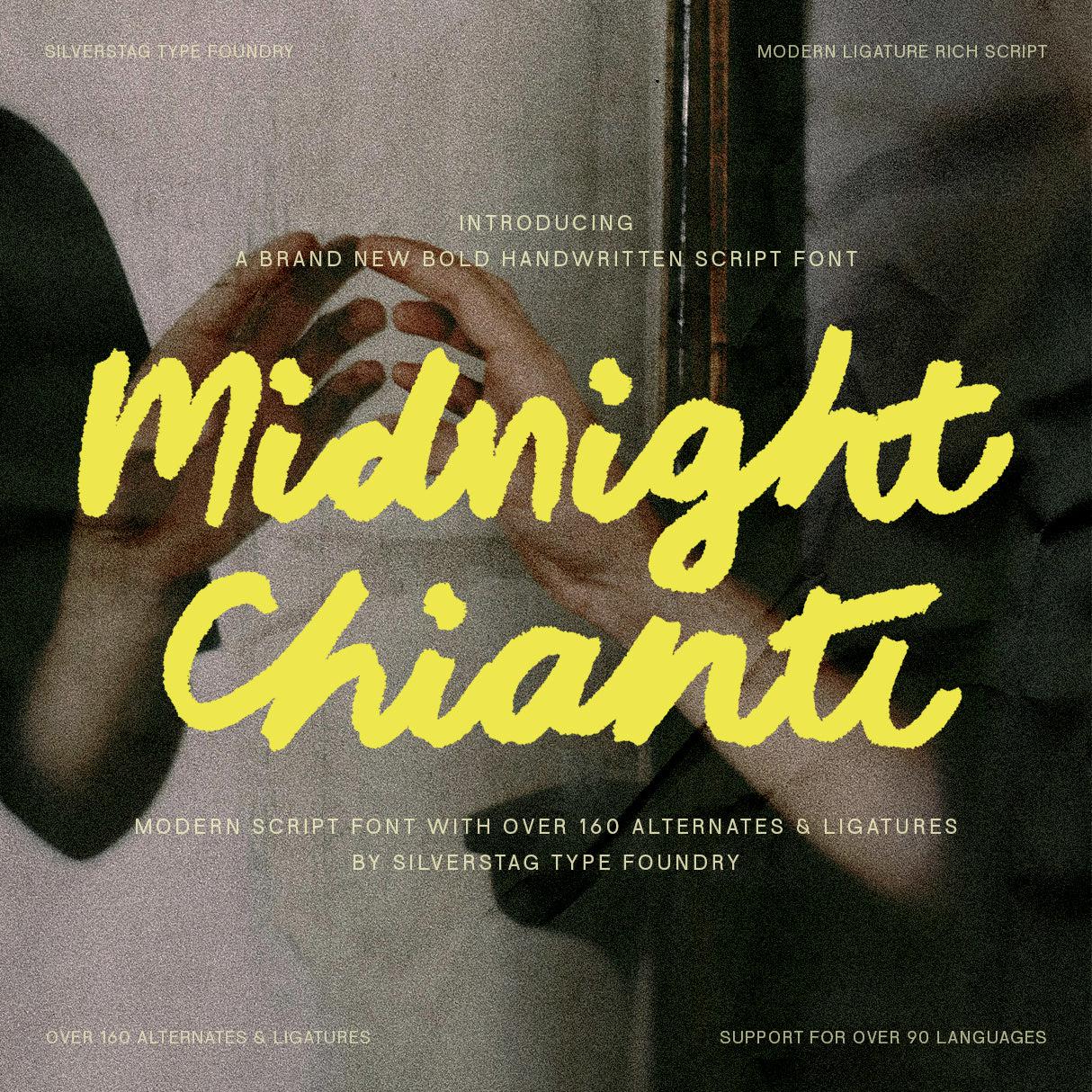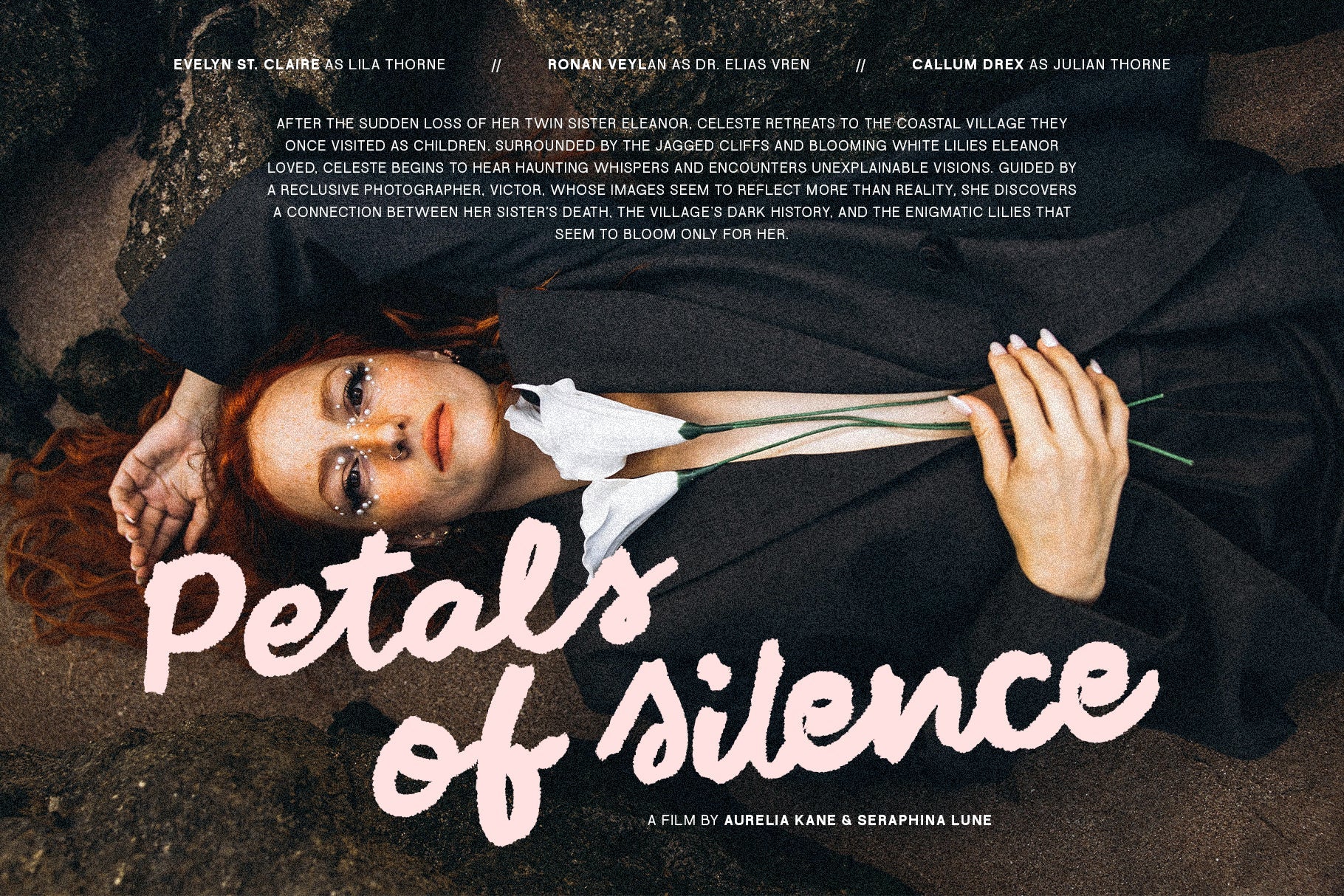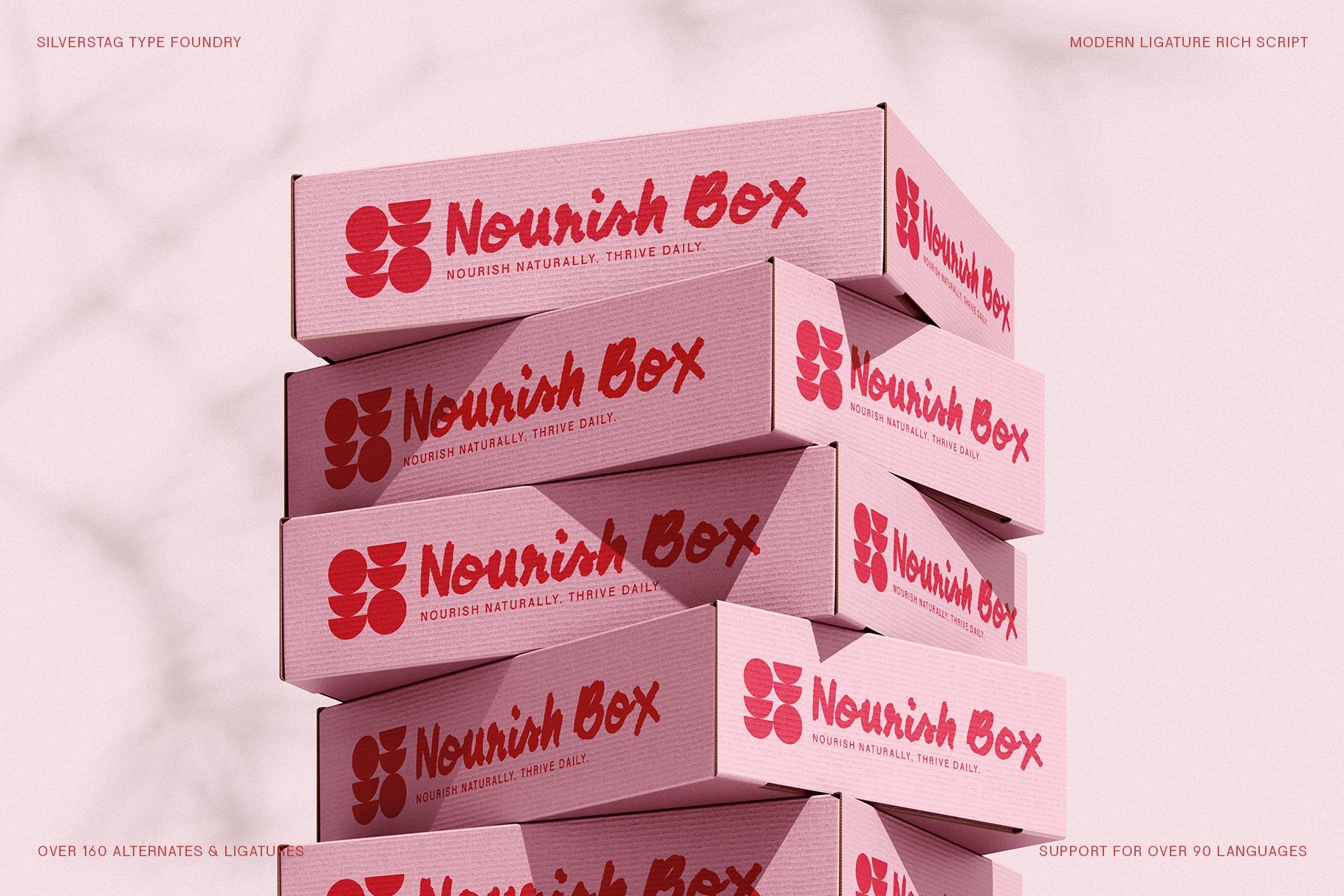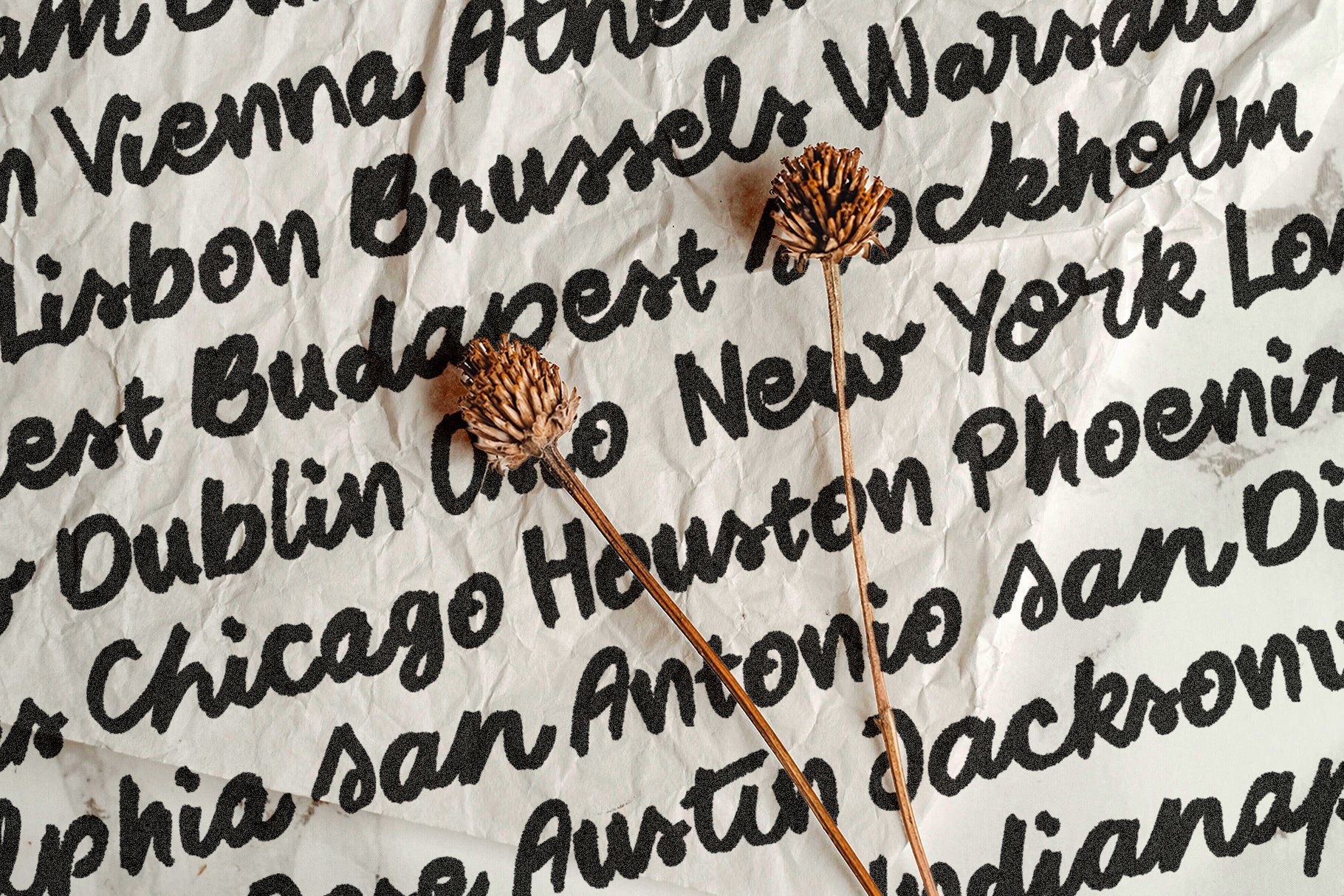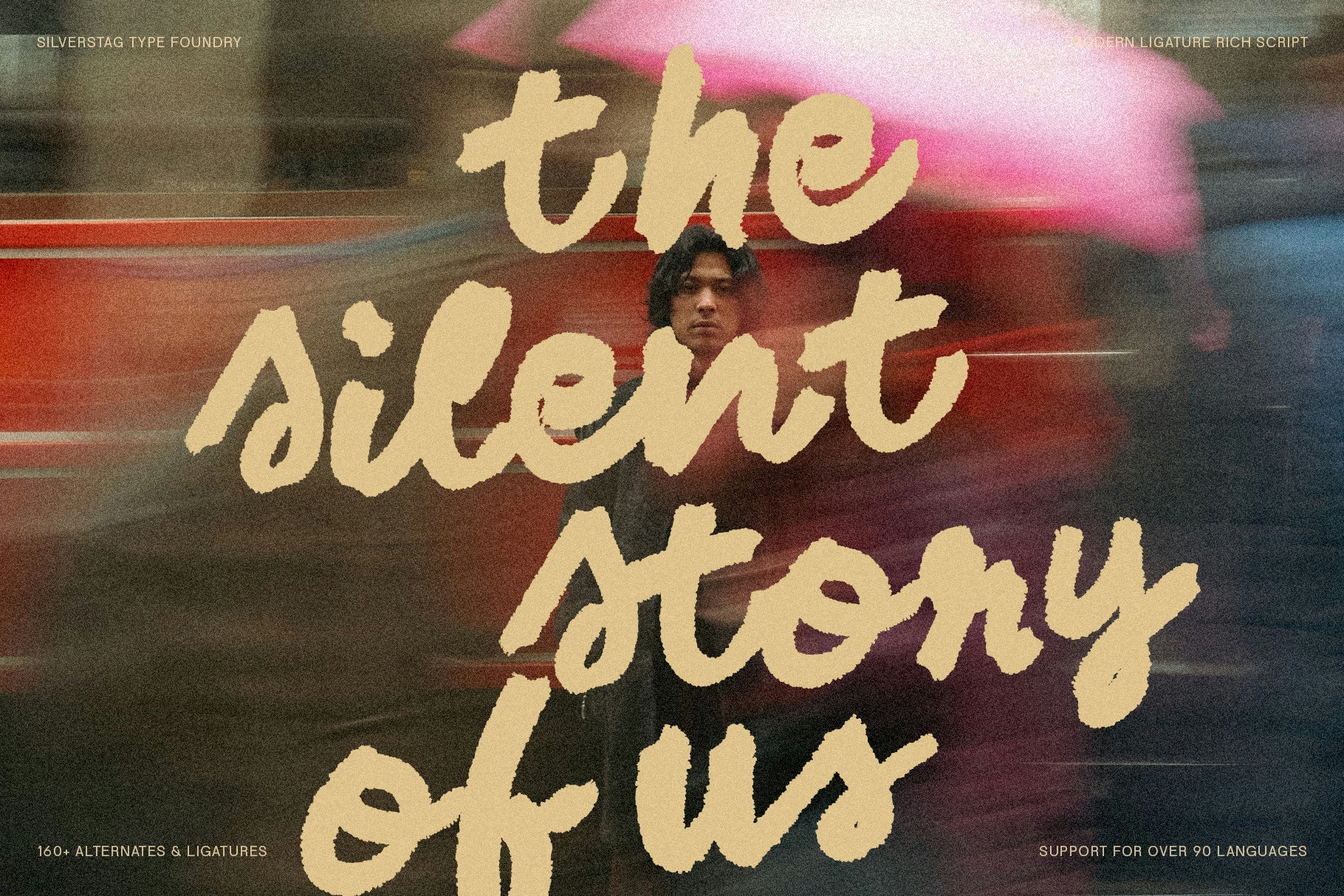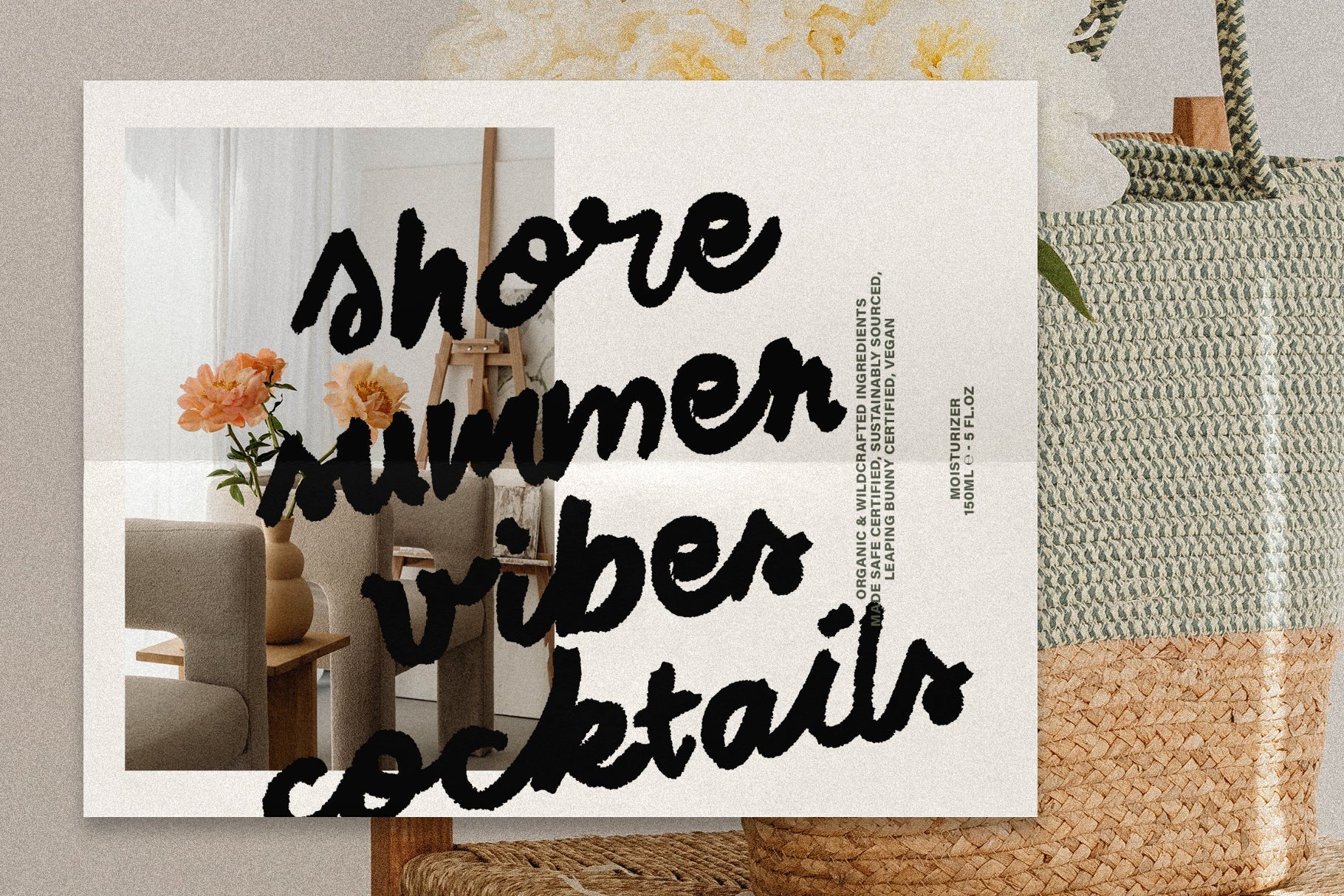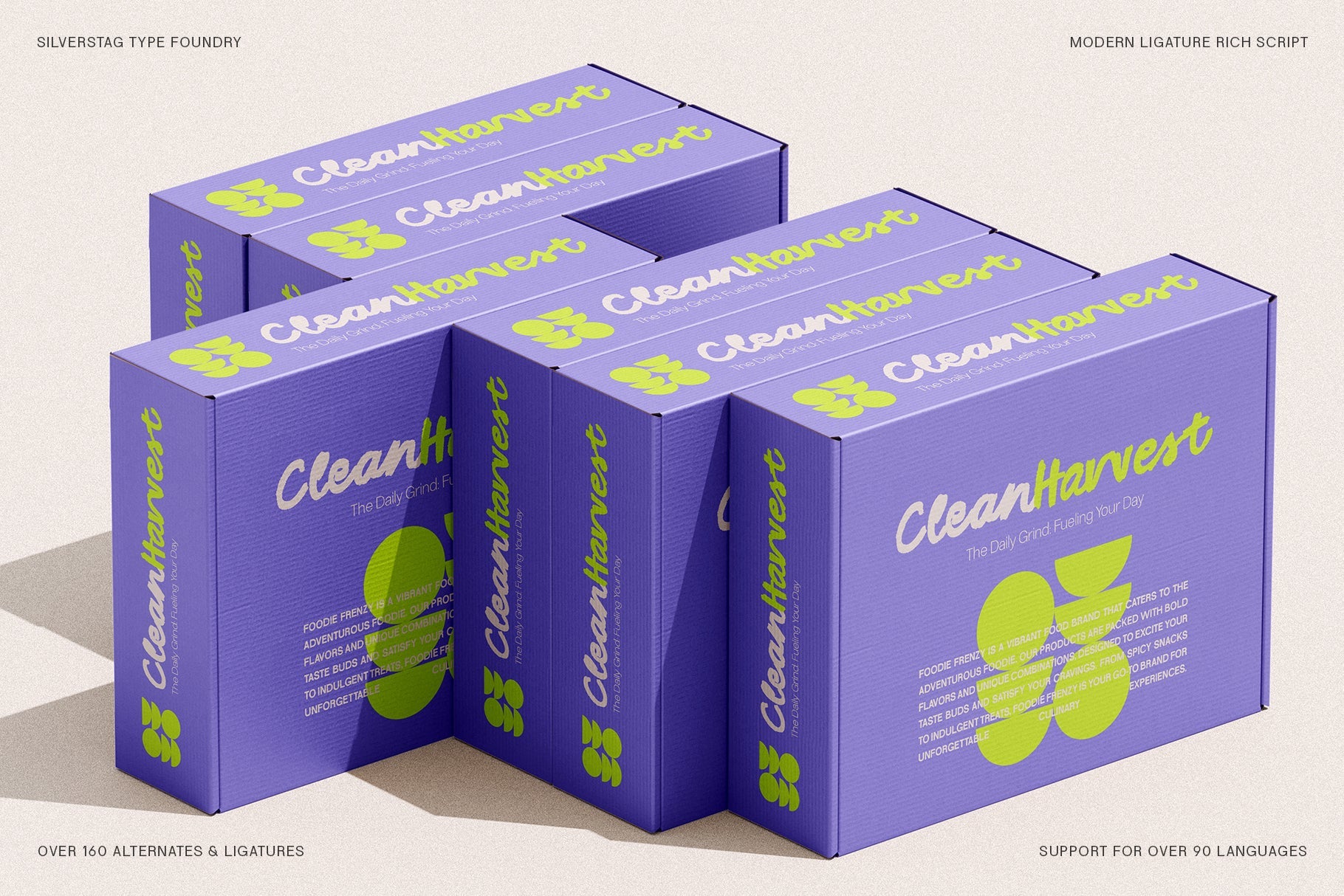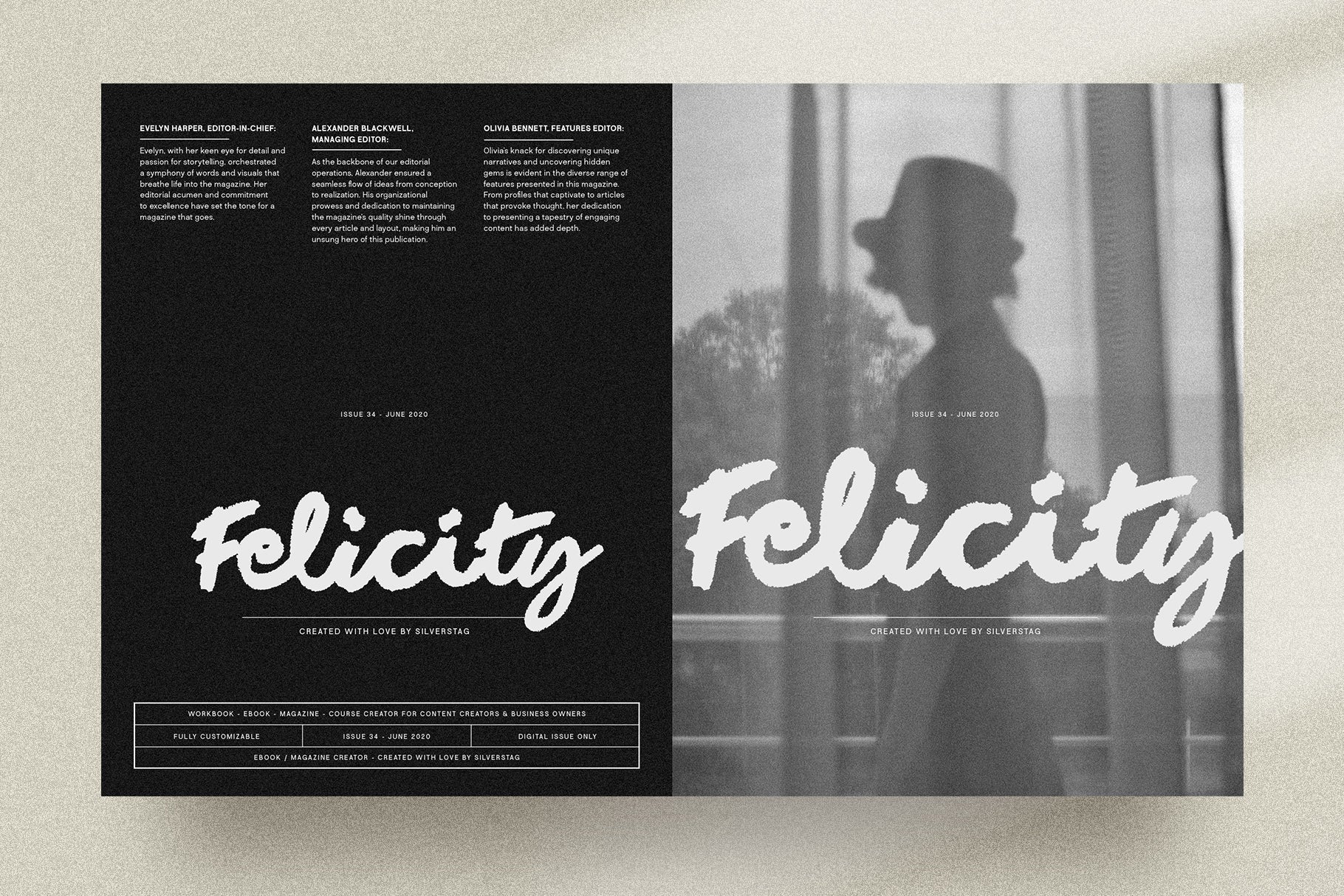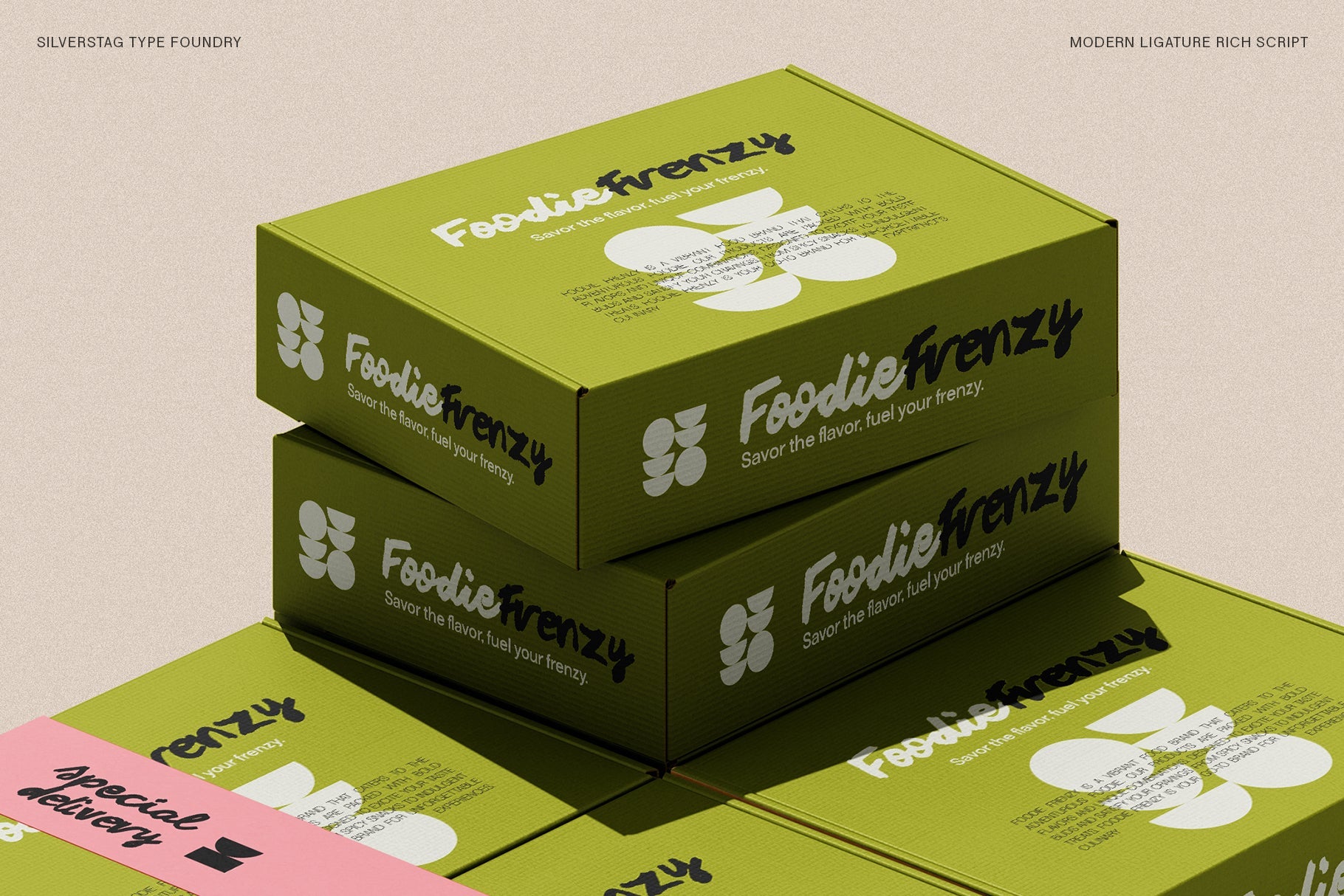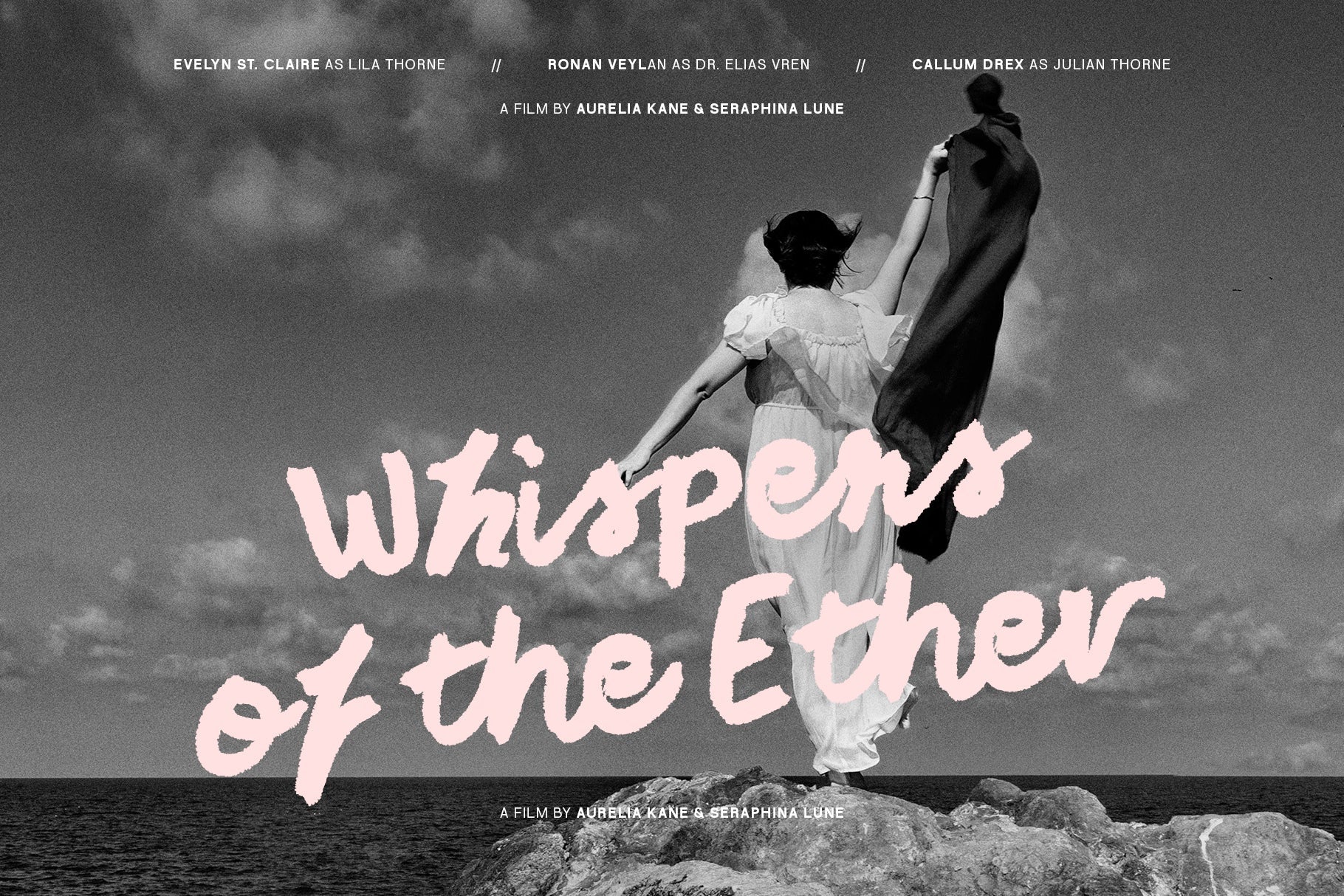
SLTF Midnight Chianti - Bold Handwritten Font
Introducing SLTF Midnight Chianti, a bold handwritten font that combines modern style with authentic craftsmanship. Designed to elevate your creative projects, this font brings a unique personality to your designs with its distinctive handwritten aesthetic. Crafted with care, SLTF Midnight Chianti offers three complete sets of uppercase and lowercase letters, ensuring versatility for any project. With over 50 custom-designed ligatures, this typeface achieves a realistic and seamless handwritten look, making it perfect for adding an organic, personal touch to your designs.
Key Features:
Three full sets of uppercase and lowercase letters: Provides endless design possibilities, giving your work a unique, handwritten feel.
50+ ligatures: Creates an authentic, flowing handwritten effect with natural connections between letters.
Multilingual support: Covers over 90 languages, allowing for global reach and inclusivity.
100% unique and handcrafted: This font was meticulously created to ensure originality and a distinctive aesthetic.
Versatility for all projects: Perfect for branding, logos, packaging, posters, editorial design, social media graphics, and more.
SLTF Midnight Chianti is a bold, handwritten font that features a modern style with an authentic, handcrafted aesthetic. It includes three sets of uppercase and lowercase letters, over 50 custom-designed ligatures, and supports over 90 languages, making it a versatile and globally inclusive typeface.